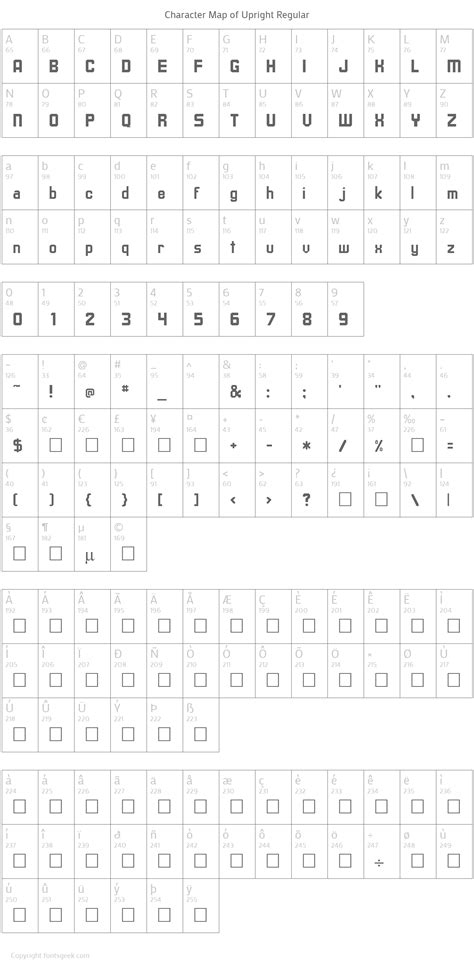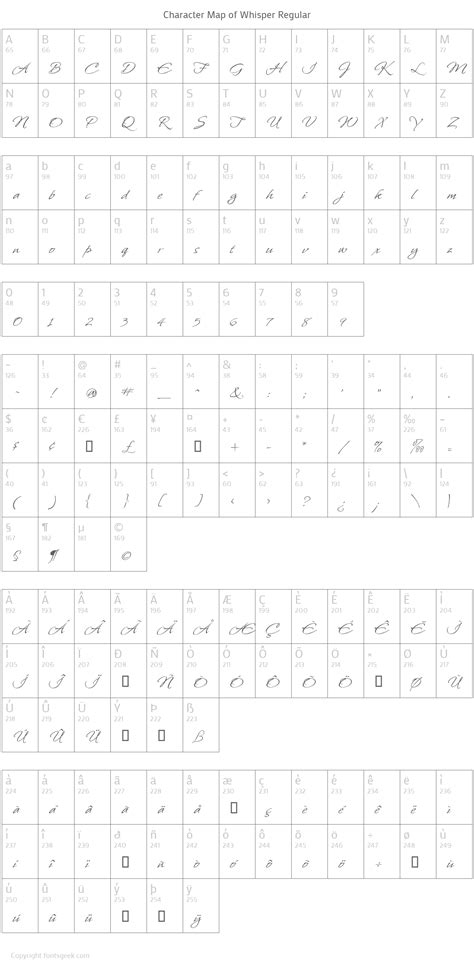
Upright Regular Font Whisper
Upright Regular Font Whisper - Web does anyone know what this font/the whisper app font is called? This font is perfect for all your fun. Use whisper for situations that call for a strong elegance. The font subfamily is regular. Scroll down to get it from the whisper site. You can use this font for varieties of work. The font family is upright. Web upright regular is the perfect font for all your fun designs. Web it has an a strong italic with angular strokes and a warm, flowing look. Web upright regular is one of the beautiful font.
The font subfamily is regular. Web what font was used in this app (for the “what font does the new whisper app use.” text)? Web does anyone know what this font/the whisper app font is called? Web upright regular is one of the beautiful font. This font is perfect for all your fun. The font family is upright. Web upright regular is the perfect font for all your fun designs. Scroll down to get it from the whisper site. You can use this font for varieties of work. Web it has an a strong italic with angular strokes and a warm, flowing look.
Web it has an a strong italic with angular strokes and a warm, flowing look. The font family is upright. Use whisper for situations that call for a strong elegance. Web what font was used in this app (for the “what font does the new whisper app use.” text)? You can use this font for varieties of work. The font subfamily is regular. This font is perfect for all your fun. Web upright regular is one of the beautiful font. Web does anyone know what this font/the whisper app font is called? Scroll down to get it from the whisper site.
Scroll down to get it from the whisper site. Web it has an a strong italic with angular strokes and a warm, flowing look. Use whisper for situations that call for a strong elegance. Web upright regular is one of the beautiful font. This font is perfect for all your fun.
Web upright regular is the perfect font for all your fun designs. Web it has an a strong italic with angular strokes and a warm, flowing look. You can use this font for varieties of work. Web upright regular is one of the beautiful font. The font subfamily is regular.
Whisper Font
The font subfamily is regular. The font family is upright. Web upright regular is one of the beautiful font. You can use this font for varieties of work. Web does anyone know what this font/the whisper app font is called?
Use whisper for situations that call for a strong elegance. You can use this font for varieties of work. The font subfamily is regular. Scroll down to get it from the whisper site. The font family is upright.
Web it has an a strong italic with angular strokes and a warm, flowing look. Scroll down to get it from the whisper site. Web what font was used in this app (for the “what font does the new whisper app use.” text)? You can use this font for varieties of work. This font is perfect for all your fun.
Use whisper for situations that call for a strong elegance. This font is perfect for all your fun. You can use this font for varieties of work. Web it has an a strong italic with angular strokes and a warm, flowing look. Web does anyone know what this font/the whisper app font is called?
Web what font was used in this app (for the “what font does the new whisper app use.” text)? The font subfamily is regular. Web it has an a strong italic with angular strokes and a warm, flowing look. Web upright regular is one of the beautiful font. The font family is upright.
Whisper Font
You can use this font for varieties of work. The font subfamily is regular. The font family is upright. Web it has an a strong italic with angular strokes and a warm, flowing look. This font is perfect for all your fun.
oo. Le ah This Font is called upright regular, and we use the
The font family is upright. Scroll down to get it from the whisper site. Web upright regular is one of the beautiful font. Web what font was used in this app (for the “what font does the new whisper app use.” text)? Web upright regular is the perfect font for all your fun designs.
Whisper A Signature Script Signature fonts, Quote prints, Logo fonts
You can use this font for varieties of work. Use whisper for situations that call for a strong elegance. Web does anyone know what this font/the whisper app font is called? Web what font was used in this app (for the “what font does the new whisper app use.” text)? Web it has an a strong italic with angular strokes.
Web Does Anyone Know What This Font/The Whisper App Font Is Called?
The font family is upright. Use whisper for situations that call for a strong elegance. The font subfamily is regular. Scroll down to get it from the whisper site.
Web What Font Was Used In This App (For The “What Font Does The New Whisper App Use.” Text)?
Web upright regular is one of the beautiful font. Web upright regular is the perfect font for all your fun designs. This font is perfect for all your fun. You can use this font for varieties of work.